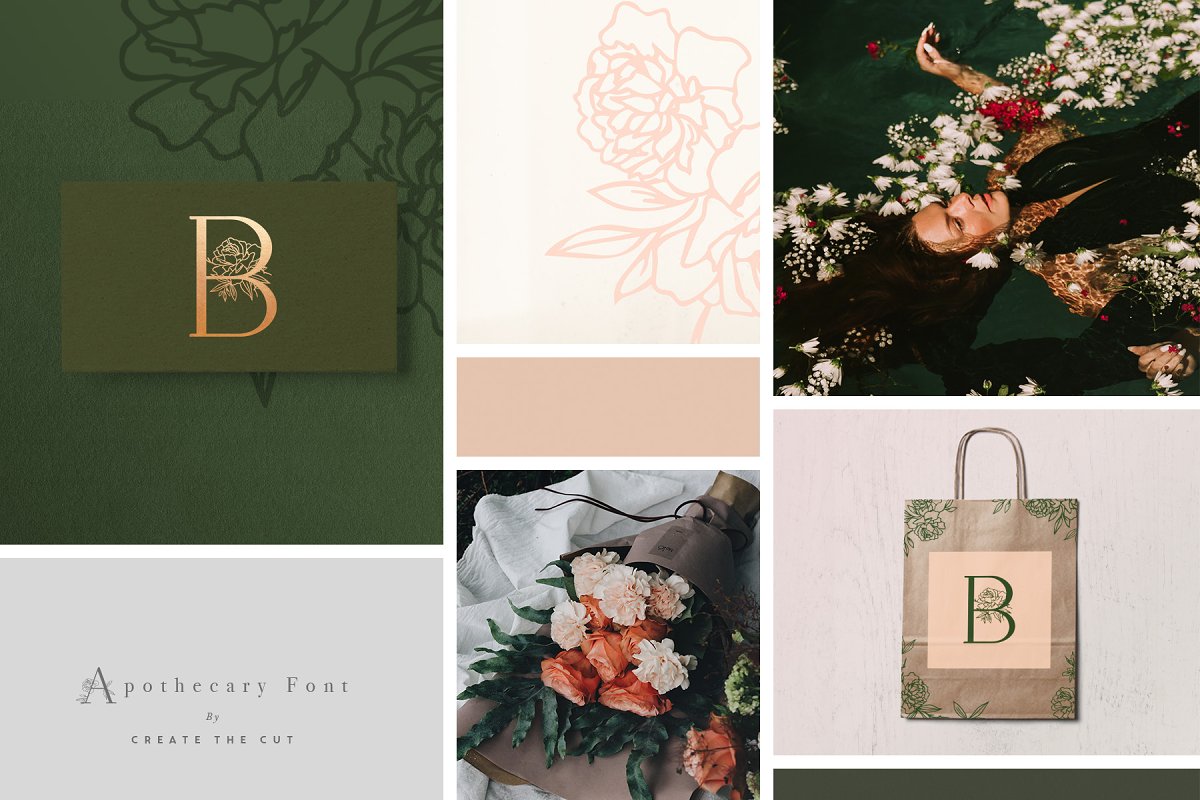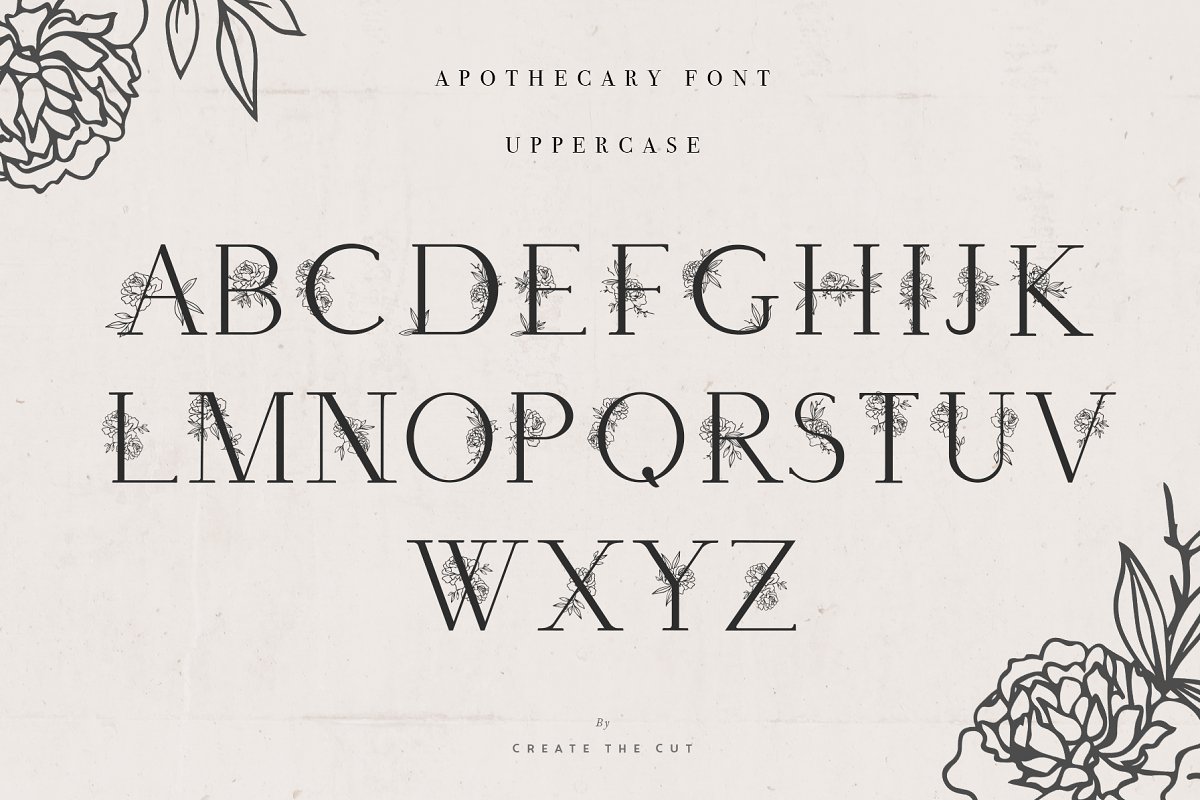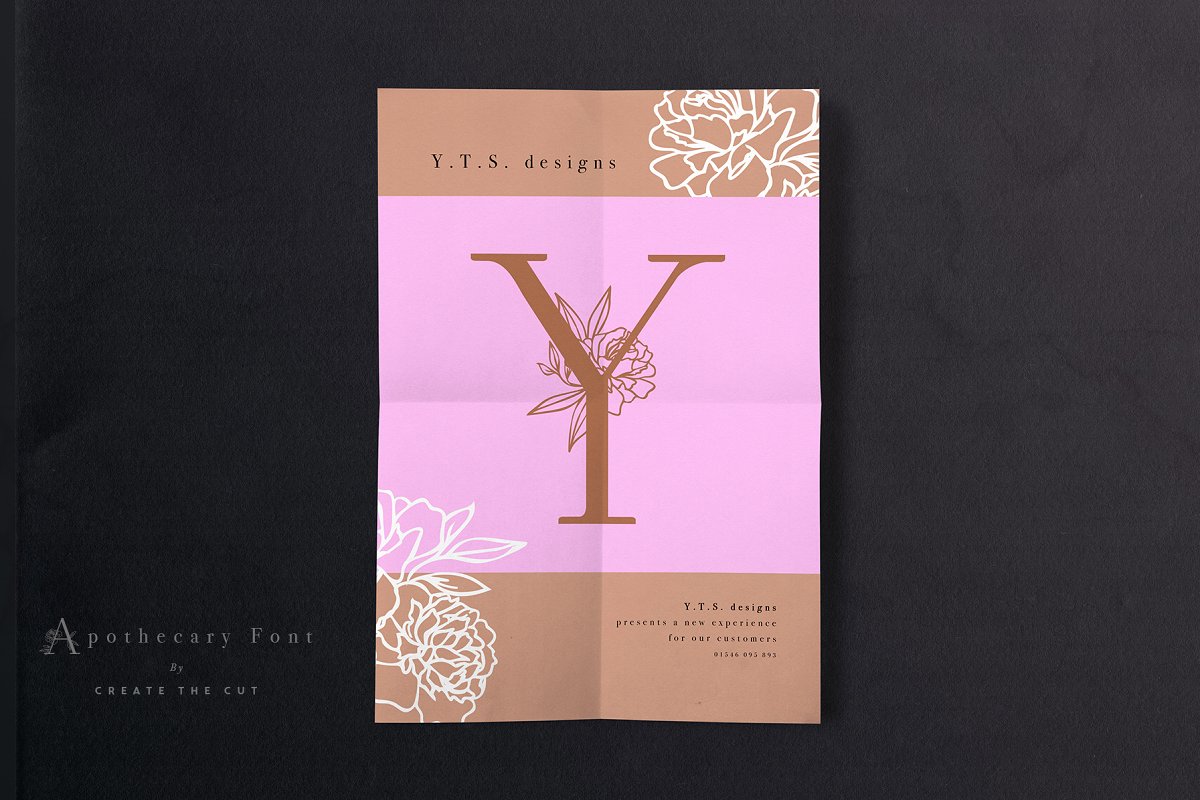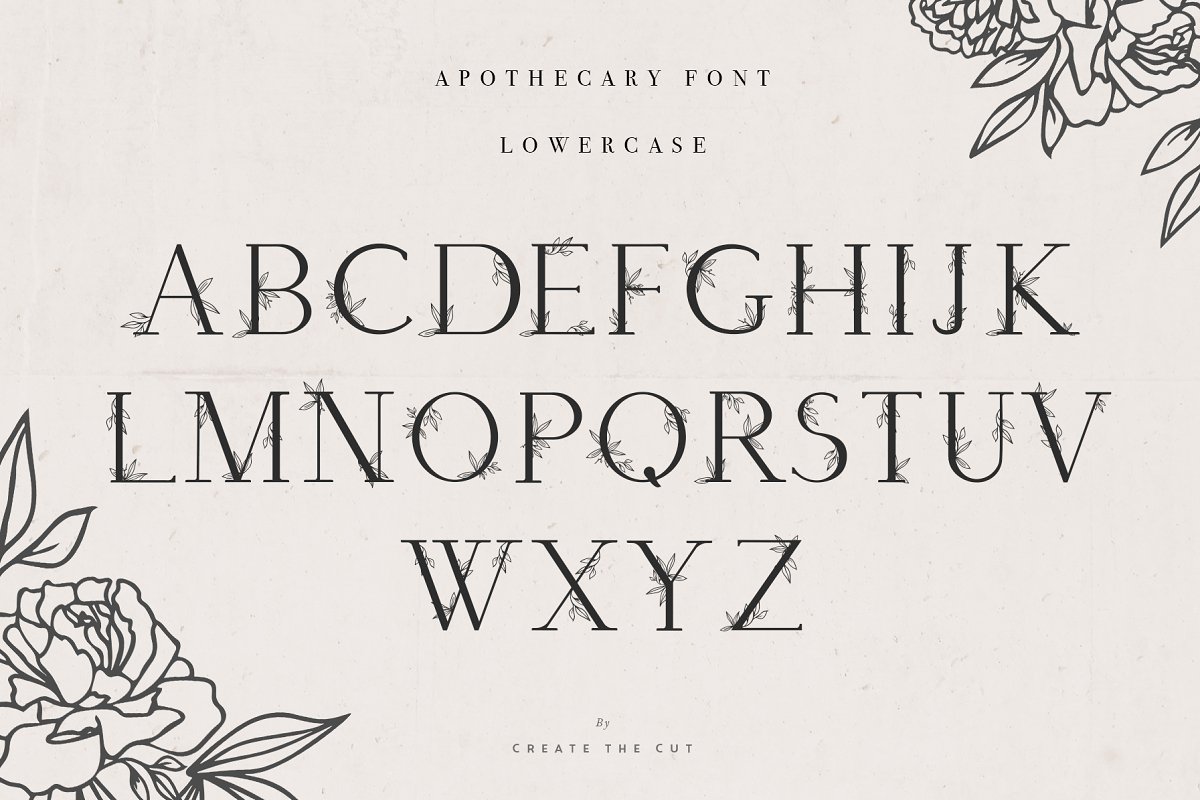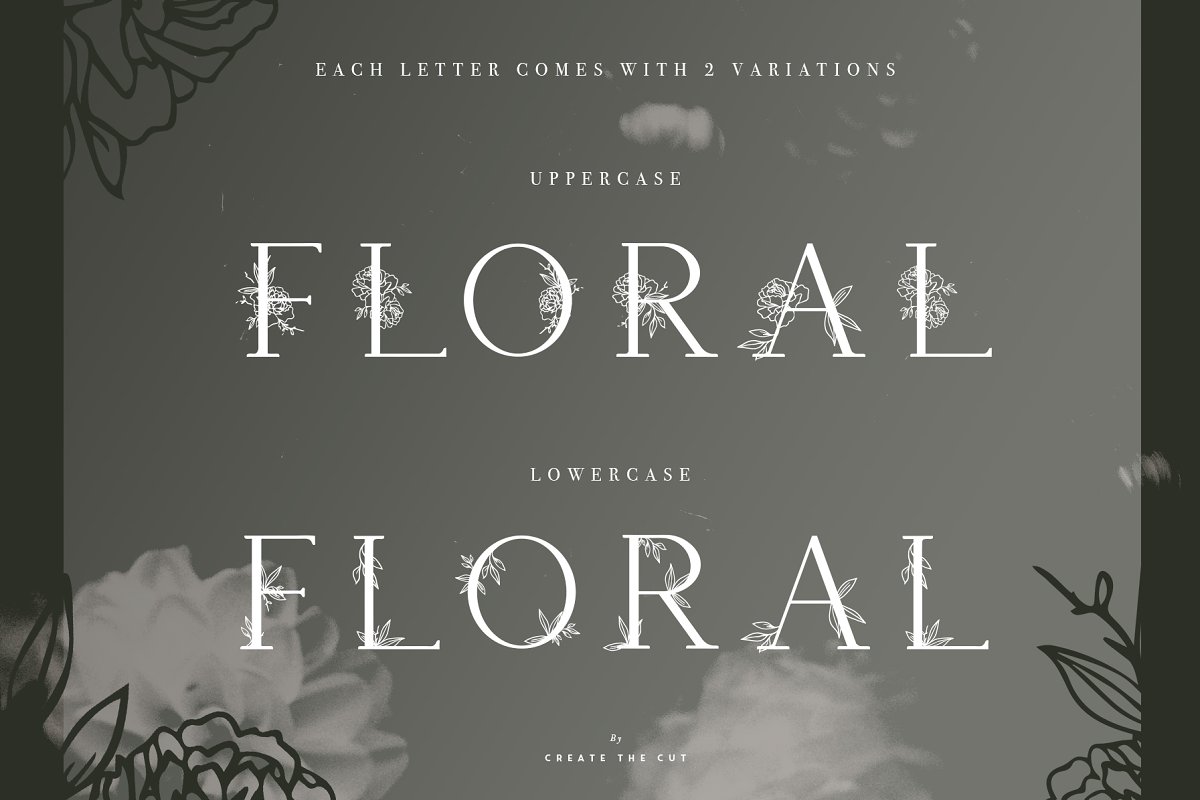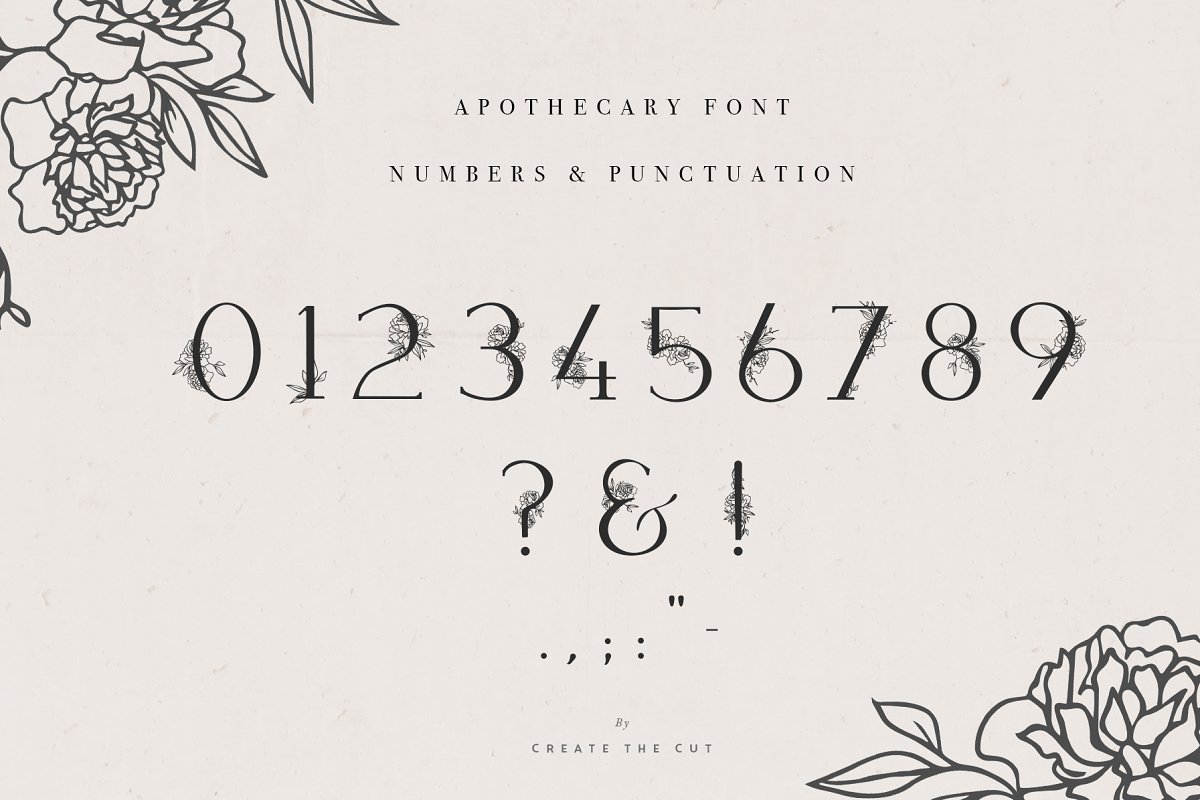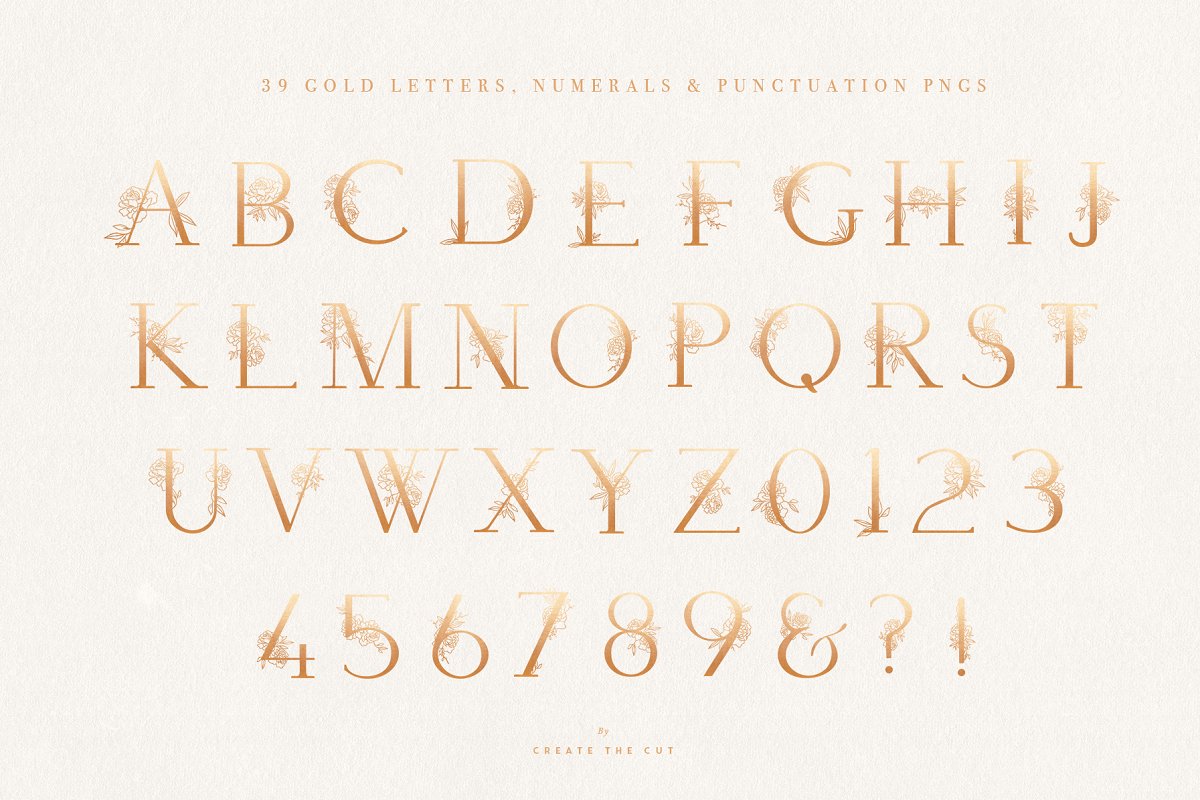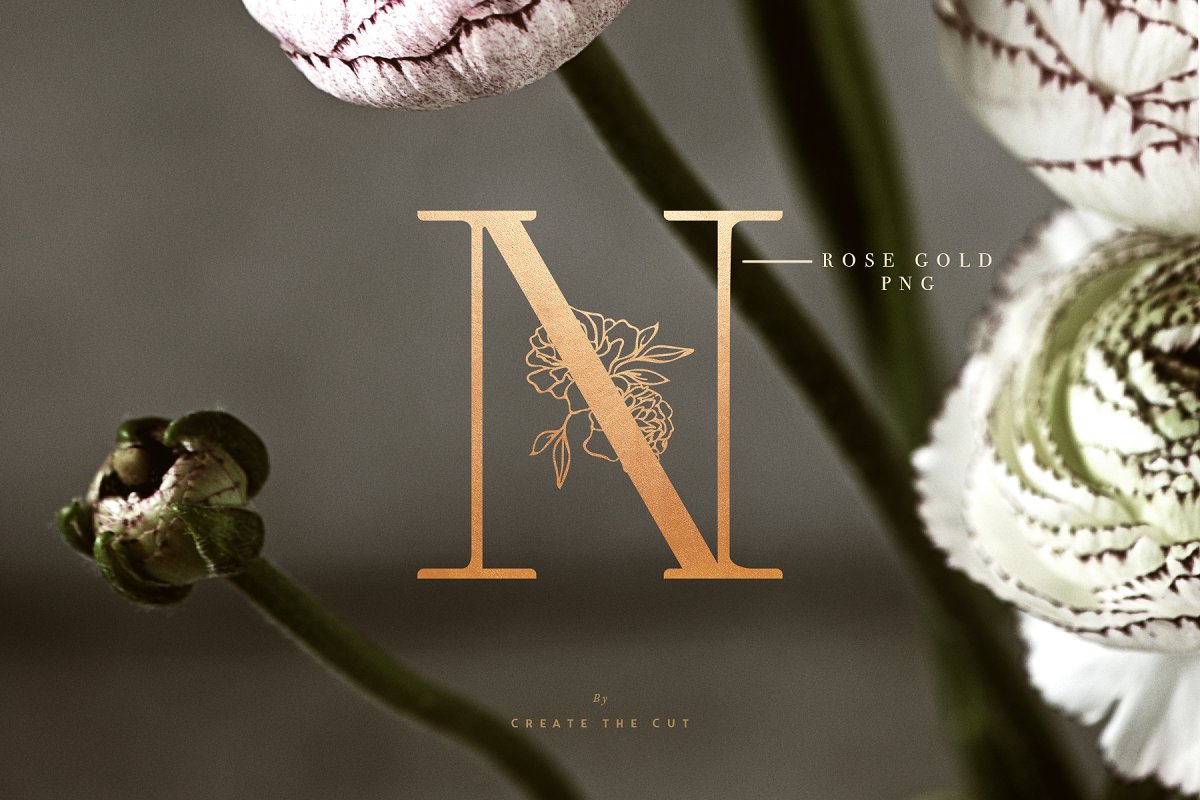
About the Apothecary Display Font
Apothecary – A modern botanical display font, Inspired by the pharmacist of old’s blend of botanical and chemical to create a remedy, We have blended our own love for fine typography and florals to create a remedy for any font lover who needs a little flair in their font library!Apothecary is a brand new font hand crafted from the ground up, Not only is this a stylish all capitals display font but it also features original botanical line artwork creating a unique & sophisticated look with every press of the keyboard